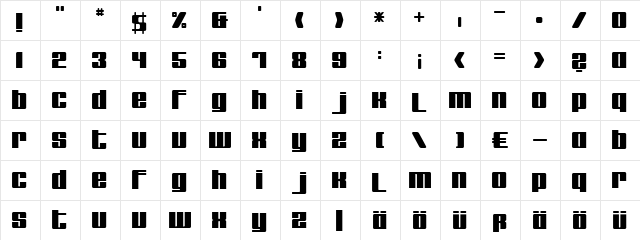
remakeoffabulous Regular
Design Context for remakeoffabulous Typeface
remakeoffabulous is a composed and adaptable typeface that performs quietly and consistently across a wide range of design contexts.